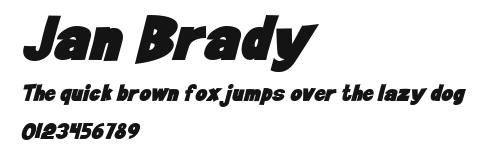
• Font Name: Jan Brady
Jan Brady.ttf is a modern, elegant sans-serif font designed for ultimate readability and visual harmony. Perfect for branding, headlines, web design, and print materials.